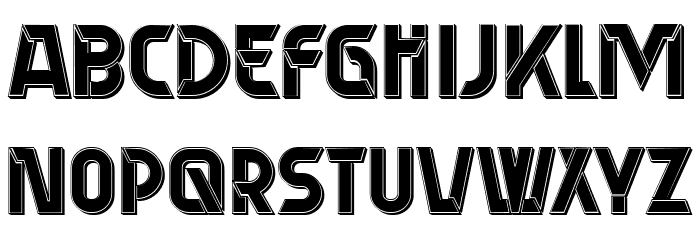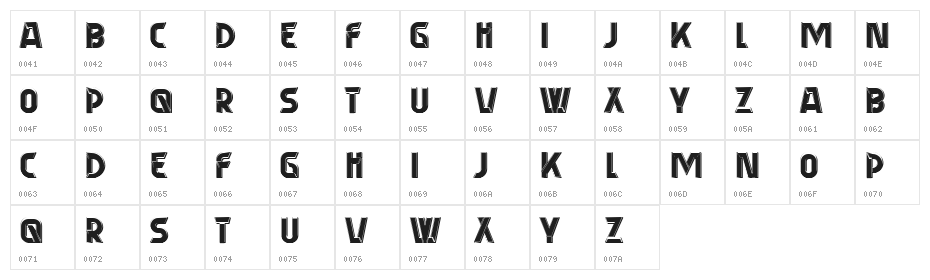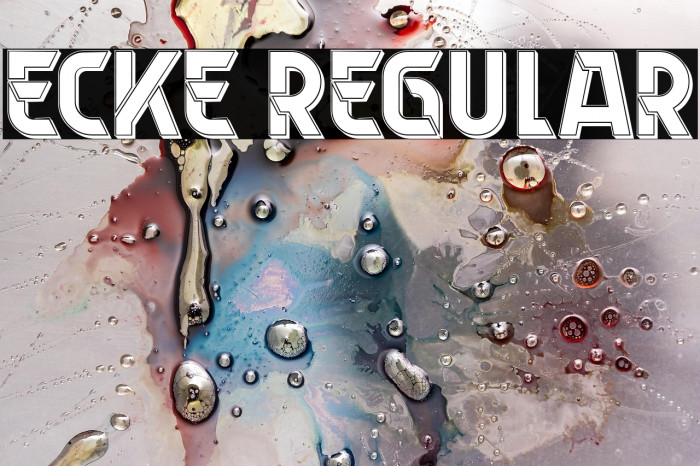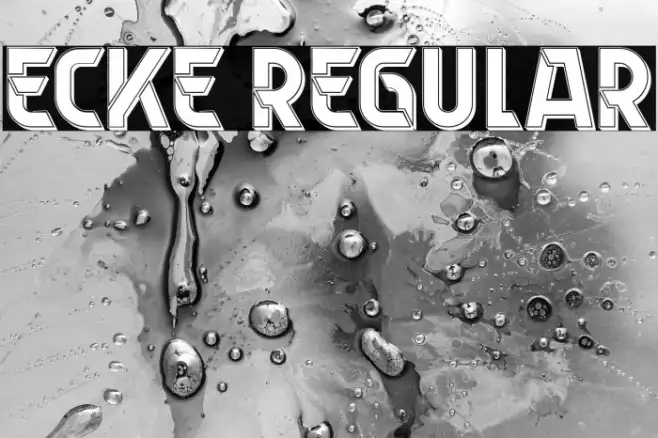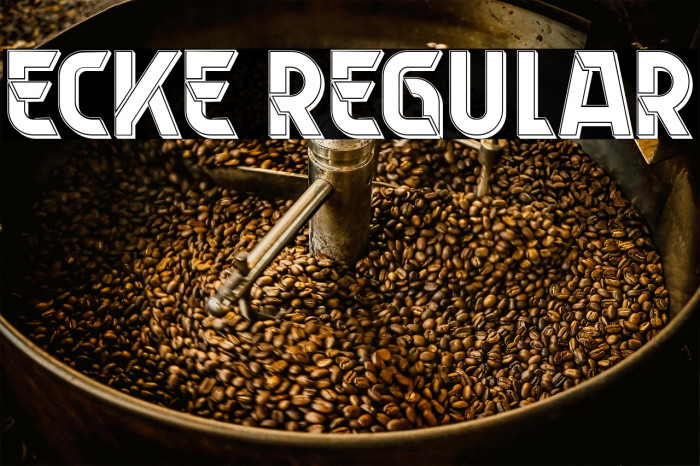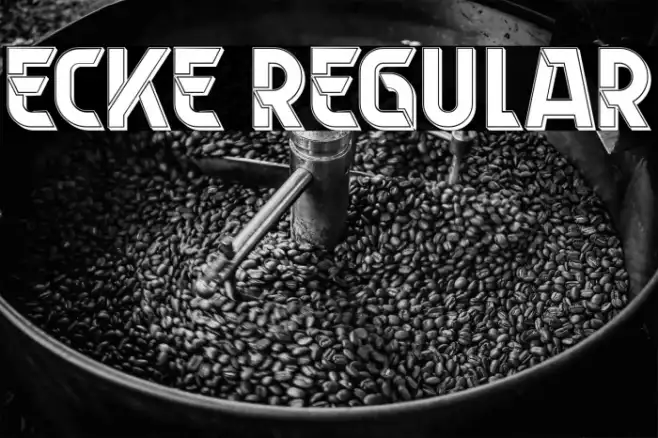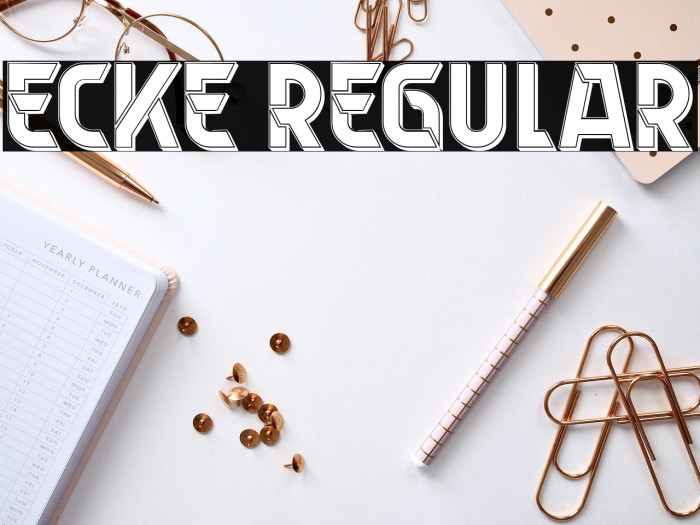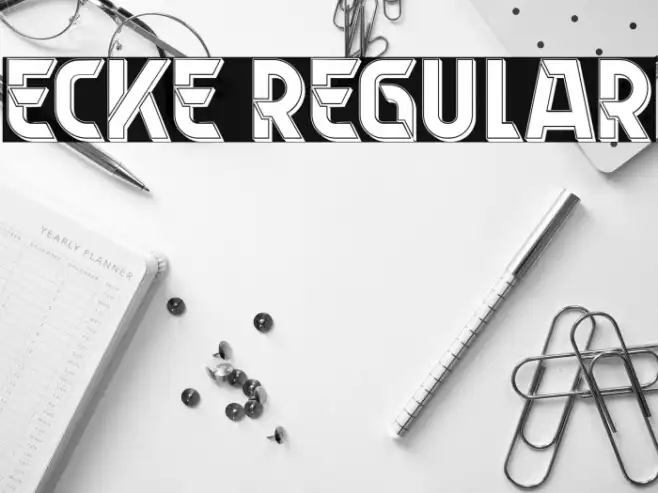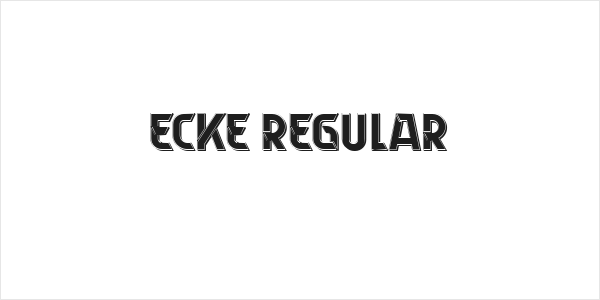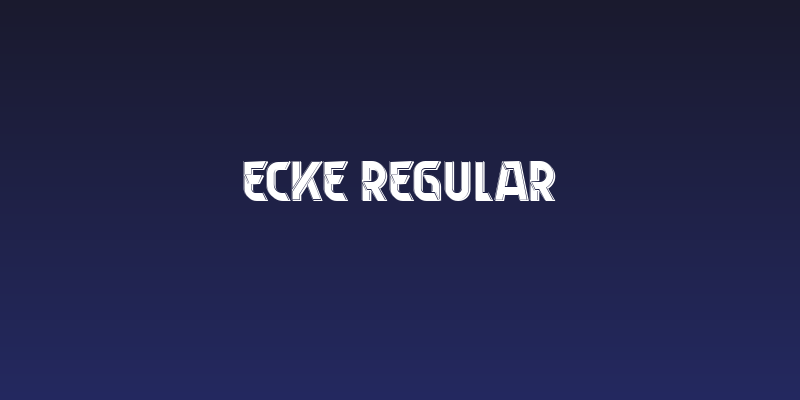
Ecke Regular Font
Ecke Regular Description
This font features a bold and geometric design with a strong emphasis on angular shapes and sharp edges. The characters are constructed with a three-dimensional effect, giving them a dynamic and modern appearance. The use of negative space within the letters enhances the visual impact, making it suitable for eye-catching designs. The uppercase letters are uniform in height, contributing to a cohesive and structured look. The font's style is reminiscent of futuristic and industrial themes, making it ideal for projects that require a bold statement.
| Proposed Projects | Ideal for branding, posters, headlines, and any design requiring a futuristic or industrial feel. |